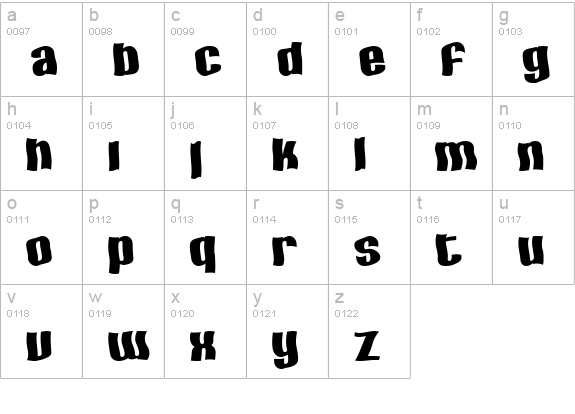
SF Hallucination Font Details
Introducing SF Hallucination, a mesmerizing and captivating font that will transport you to a world of boundless imagination. This unique and futuristic typeface is designed to ignite your creativity and inspire wild ideation. SF Hallucination boasts a harmonious balance between sleek sophistication and edgy modernity. Its fluid lines and intricate details create a visual symphony that demands attention. Whether used for headlines, logos, or body text, this font will effortlessly elevate any design project to new heights. But what truly sets SF Hallucination apart is not only its striking aesthetics, but also its accessibility. This remarkable font is available for free download exclusively at FontsMarket.com. Yes, you read that right – it's completely free! We believe that creativity should have no boundaries, and with SF Hallucination, you can unleash your artistic visions without any limitations. Unleash your imagination and explore the endless possibilities with SF Hallucination. With its extensive character set and versatile design, this font is perfect for a wide range of applications – from sci-fi movie posters to futuristic brand identities. Let SF Hallucination be the catalyst for your next design adventure. Download SF Hallucination now at FontsMarket.com and experience the power of free creativity. Don't miss out on this opportunity to add a touch of magic and intrigue to your designs. Get ready to immerse yourself in a world where dreams become reality and where SF Hallucination takes center stage.